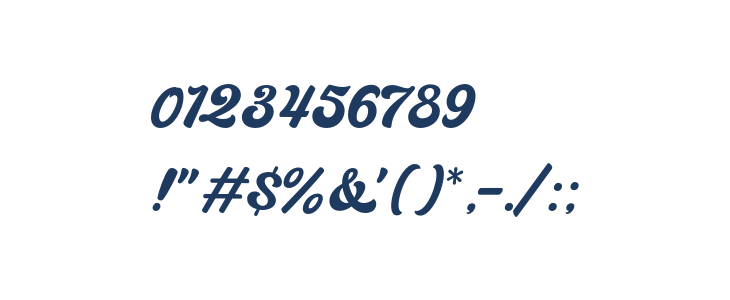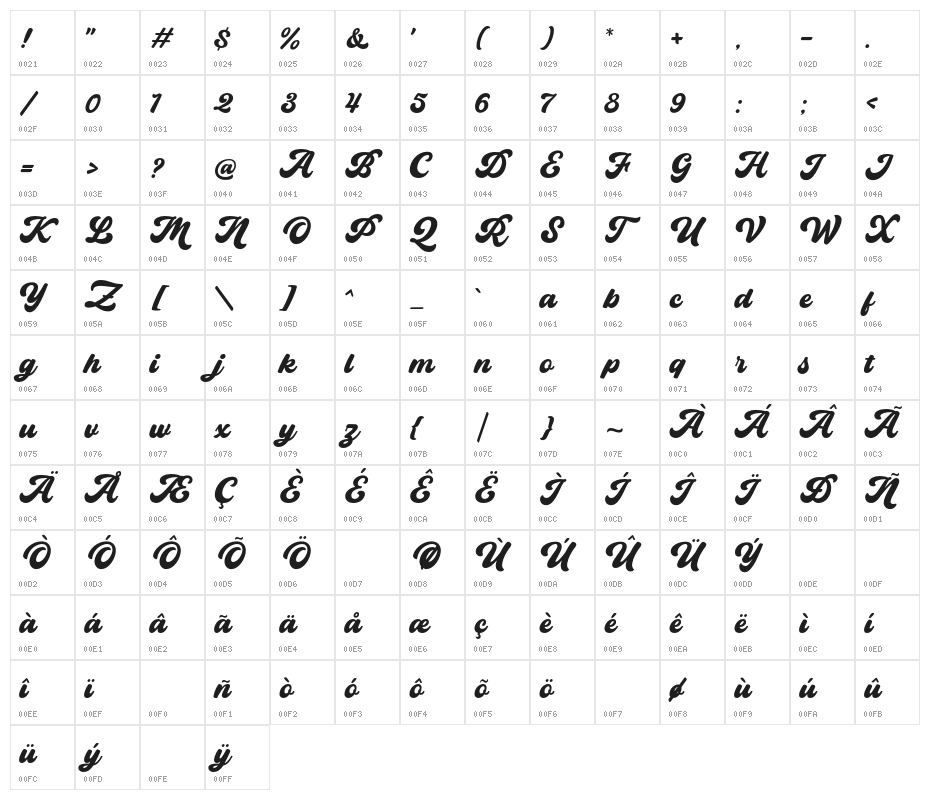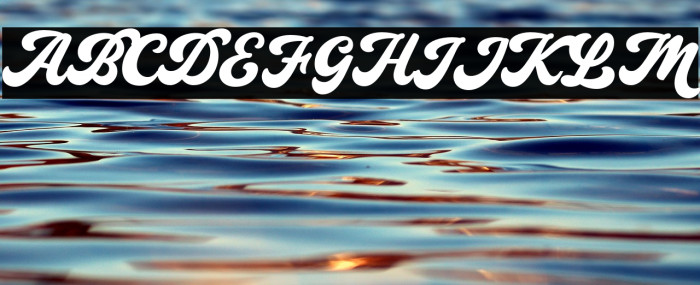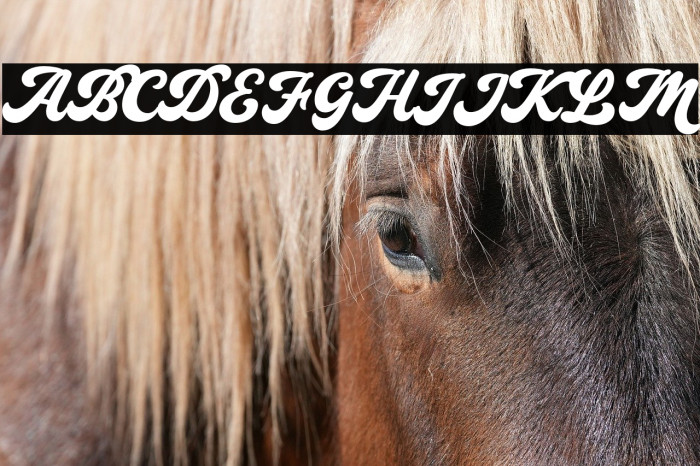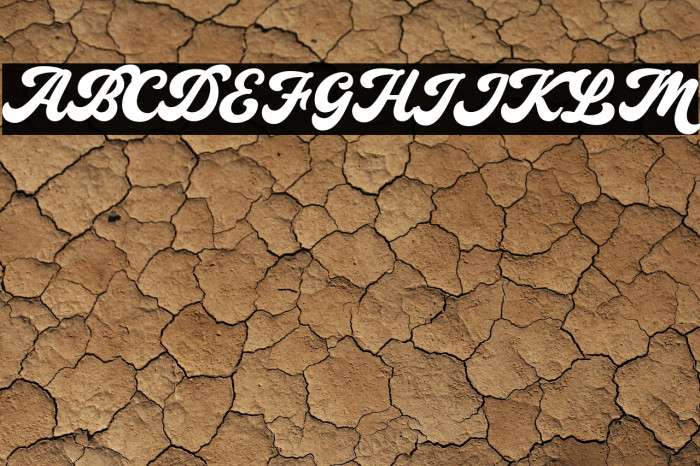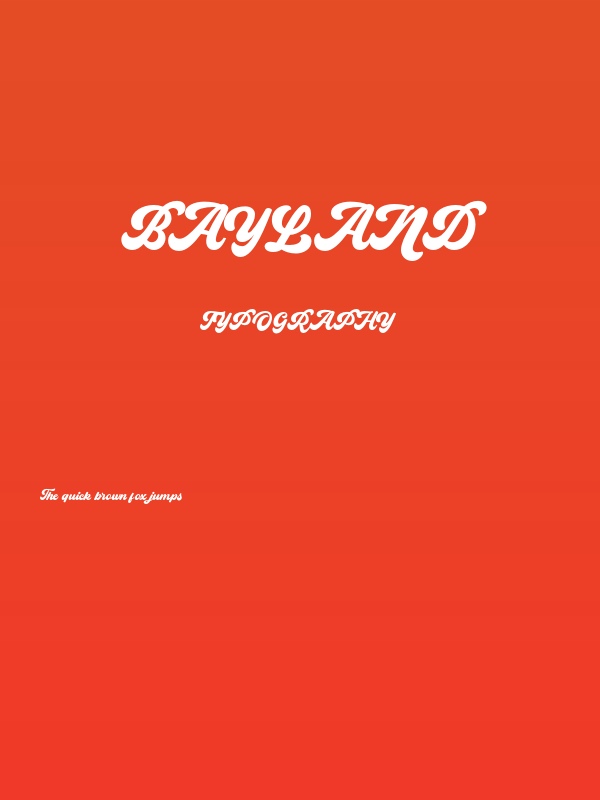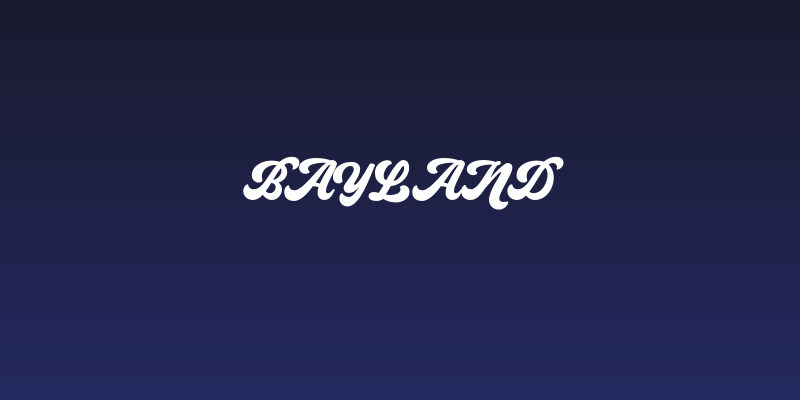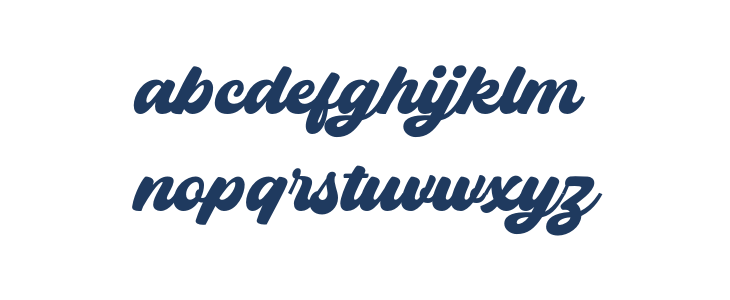
Bayland Font
Bayland Description
This font features a bold, cursive style with smooth, flowing lines that create a sense of elegance and movement. The characters are closely connected, giving it a handwritten appearance. The uppercase letters are slightly larger and more pronounced, while the lowercase letters maintain a consistent flow. The numbers and special characters are designed to match the overall style, ensuring a cohesive look across all elements. This font is ideal for projects that require a personal touch or a sense of sophistication.